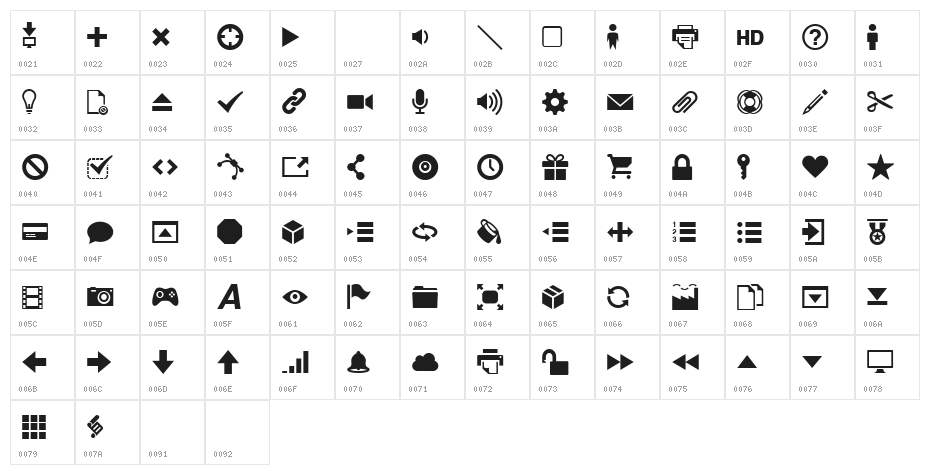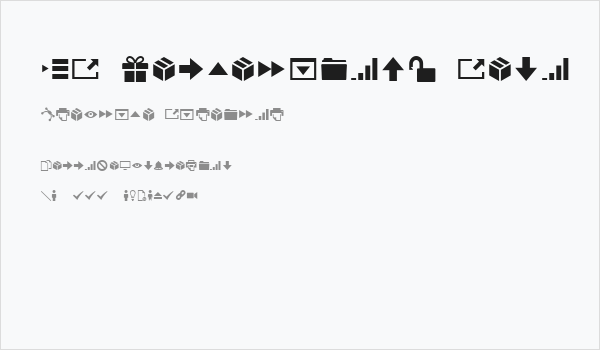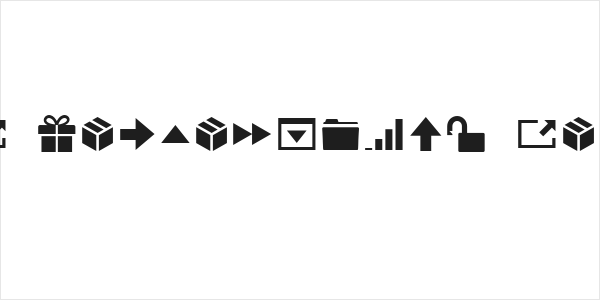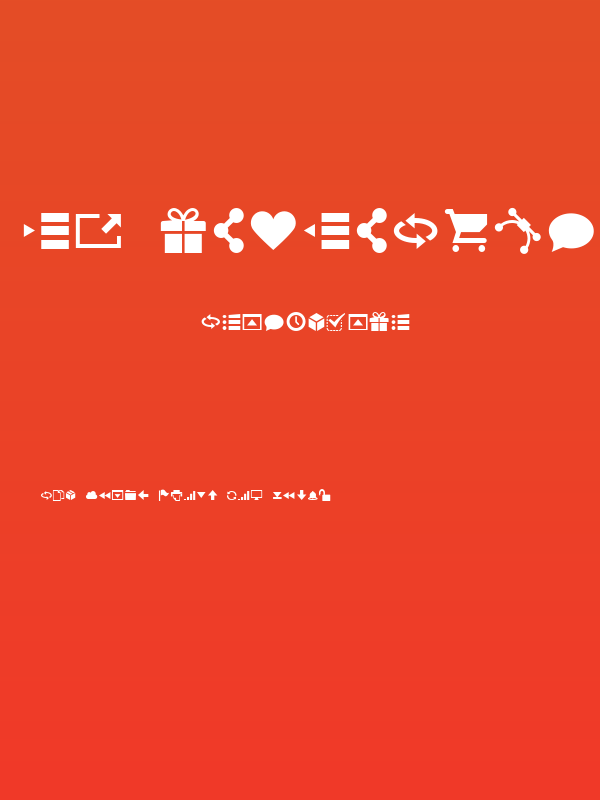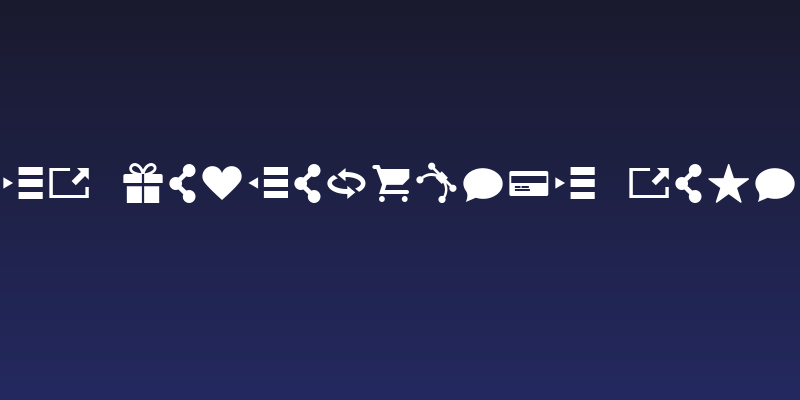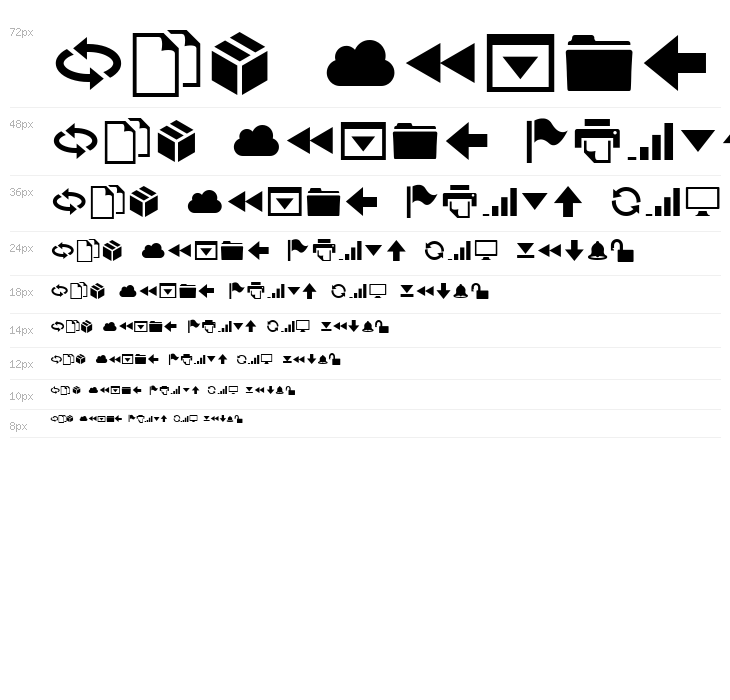
SD Helveticons Demo Font
SD Helveticons Demo Description
A set of bold, geometric, and highly legible icon glyphs with uniform stroke weight and simple, modern shapes. The icons are solid, filled, and designed for clarity at small sizes, featuring minimal detail and consistent visual weight throughout.
| Overall Style | Modern, Minimalist |
| Use Case | Icons, UI elements, buttons, navigation, toolbars |
| Proposed Projects | User interfaces, mobile apps, web design, dashboards, signage, infographics. |